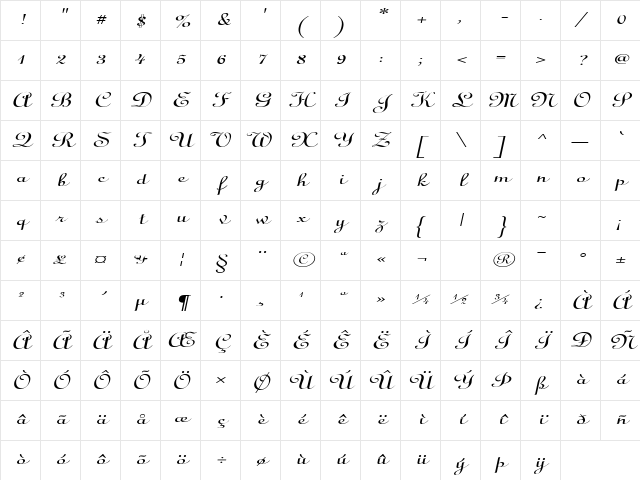
CathedralExtended Italic
Design Context for CathedralExtended
CathedralExtended is a composed and adaptable typeface that performs quietly and consistently across a wide range of design contexts. The slanted form adds forward momentum and visual energy.
Pro Tip: Use CathedralExtended for emphasis, pull quotes, and subheadings where its slanted energy can add rhythm to the layout.